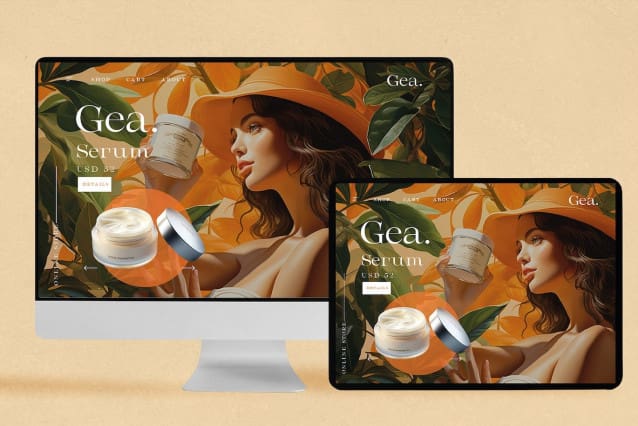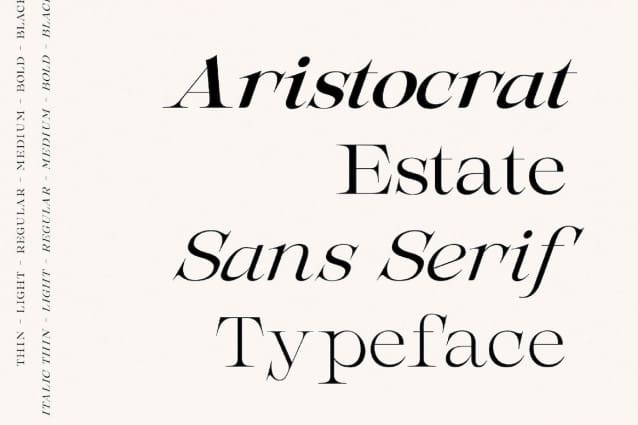
Aristocrat Estate Font
Aristocrat Estate Font, an opulent and exquisite Serif typeface that embodies sophistication and luxury. With a range of 12 meticulously designed weights, this font exudes a timeless elegance, making it the ideal choice for projects that demand a premium aesthetic. The meticulously designed serifs and graceful letters evoke a sense of refinement and class, recalling the grandeur of a majestic domain.
Whether delicate lightness or bold weight, AristocratState offers versatility suitable for formal and contemporary settings, whether for high-end branding, editorial layouts or invitations. Enhance your design with this font and evoke an aura of aristocratic splendor that resonates with those who appreciate the finer things in life